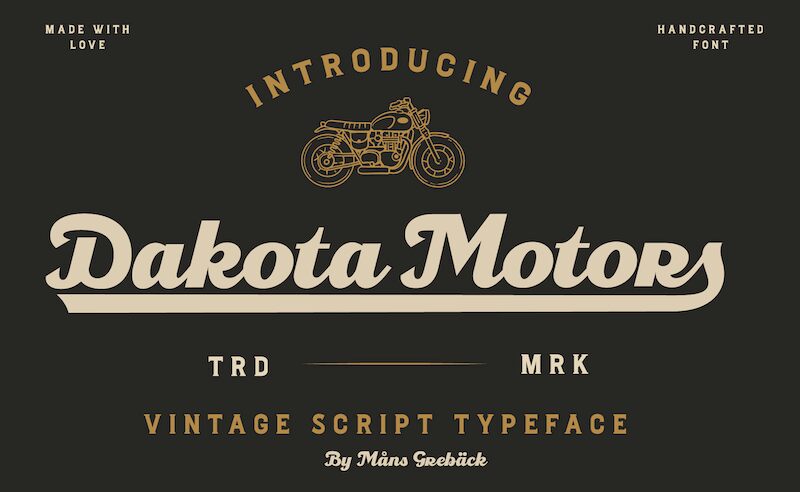
Dakota Motors is a bold and striking vintage script font designed by Mans Greback. Its semi-expanded width adds to its unique appeal, making it perfect for various projects that require a touch of nostalgia. This font is suitable for automotive-themed designs, such as car advertisements, racing events posters, and vintage car restorations branding. Dakota Motors also works great on retro-style packaging designs such as craft beers, organic foods, and artisanal products. With its timeless appeal and bold presence, Dakota Motors will surely make your project stand out from the crowd.
Dakota Motors is a retro script font. It is expressive, and is constructed of sharp strokes and heavy letterforms. Use it for a cool logotype or headline to give your work that genuine look.
Use underscore _ to make a swash.
Example: Puch_
Use multiple underscores to make longer swashes.
Example: RaceCar_____